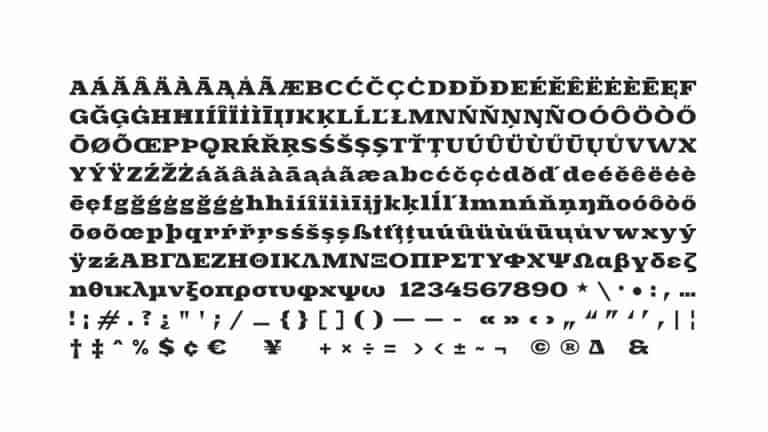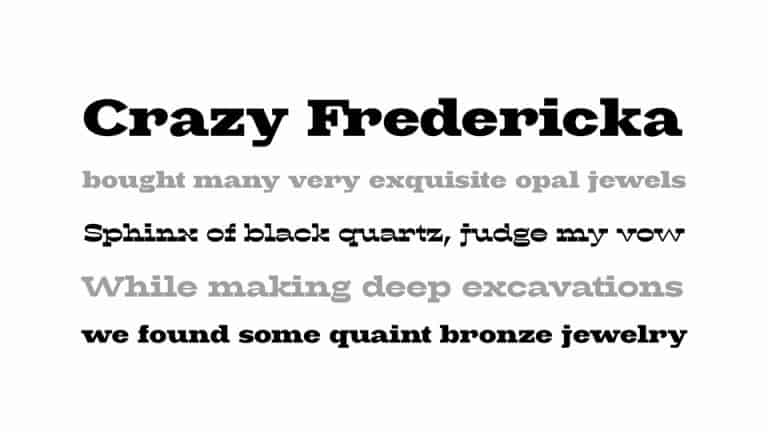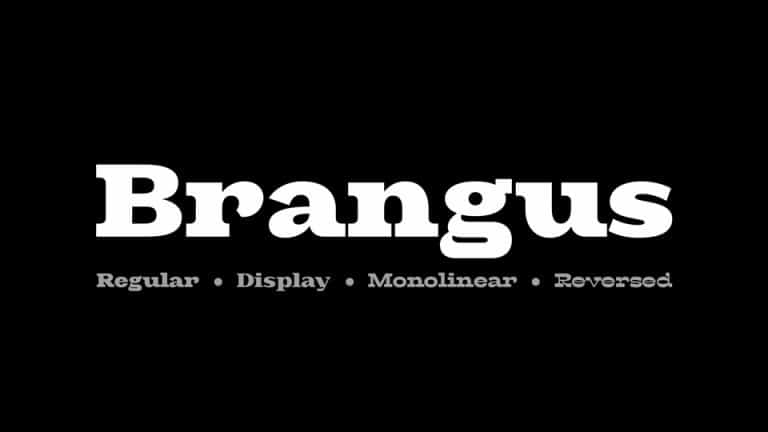
Brangus Sans Serif Font is a bold and condensed powerhouse ready to tackle headlines with ease. This font is a fat slab variable typeface created by Backpacker with a contrast axis ranging from high vertical contrast to high horizontal contrast. Brangus comes in four styles, including variable font.